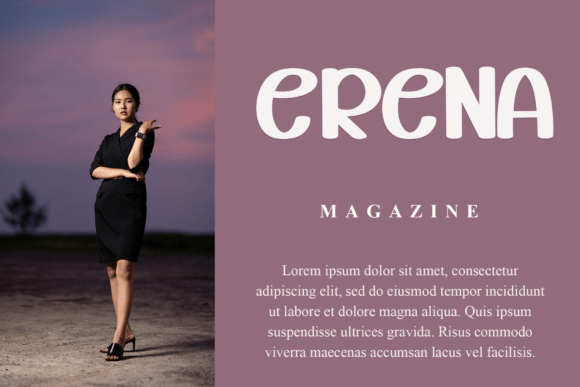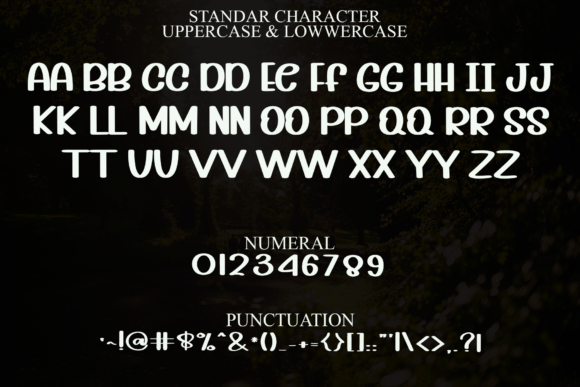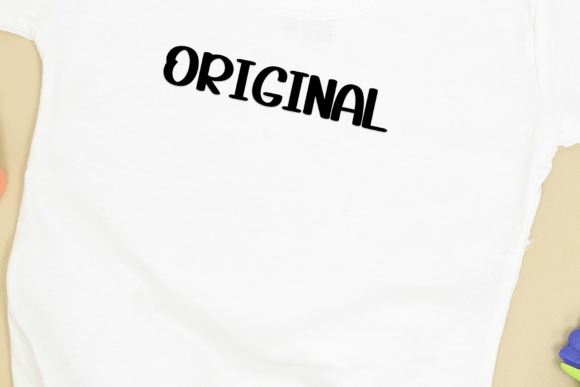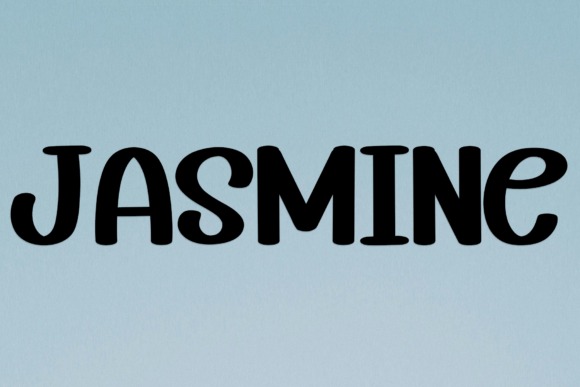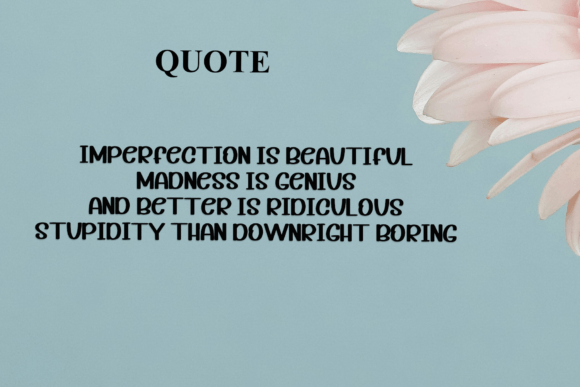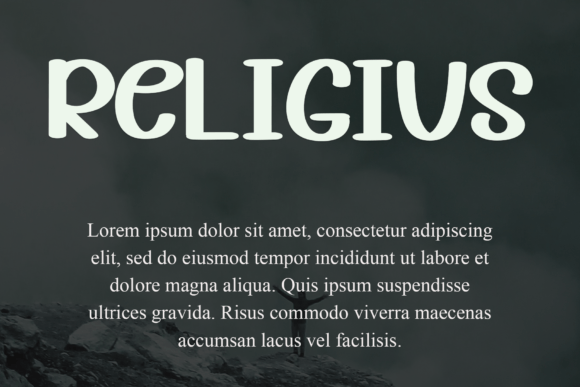
Unlock the Power of Typography: Believe Font
Have you ever been working on a design project and suddenly, that one font makes everything come together? It’s as if the words on the page are jumping off the screen, telling a story that’s impossible to ignore. That’s what happens when you find the right font, and for designers, it’s a game-changer. The Believe Font is one such gem that has captured the hearts of many with its timeless elegance and versatility.
Whether you’re creating a logo, branding, or a quote that needs to stand out, the Believe Font is an excellent choice. Its unique and beautiful touch adds a personal touch to any design, making it truly unforgettable. As a designer, you’ll appreciate the value it brings to your work, elevating your creations to new heights.
Believe Font Key Features
- Font Family: Believe Font is a sans-serif font family designed for digital use.
- Unique Characteristics: Believe Font features a clean and modern design aesthetic, with a subtle rounded edge to give it a friendly and approachable feel.
Believe Font Review
Overall, I’d say the Believe Font is a solid, modern sans-serif font that’s perfect for titles, headings, and other display text. ✨ Its clean lines, rounded edges, and subtle curves make it an excellent choice for creating visually appealing designs.
- Legibility is great, even at smaller font sizes.
- Believe Font is highly customizable, allowing you to adjust the spacing, line height, and font weight to suit your design needs.
- It’s a great choice for digital interfaces, such as websites, mobile apps, and social media platforms.
- The Believe Font may not be suitable for body text, as it can be a bit too playful and attention-seeking for large blocks of text.
- The font family is relatively small, so you may not have as many options as you would with more comprehensive font libraries.
- The Believe Font may not be the best choice for print materials, as its digital-centric design may not translate well to physical media.
Overall, I think the Believe Font is a great addition to any designer’s toolkit, but it’s essential to use it judiciously and in the right contexts. With some careful consideration, you can unlock its full potential and create stunning designs that grab attention and engage your audience.
The Believe Font is ideal for:
- Creating motivational quotes and posters.
- Designing inspirational graphics and social media posts.
- Adding a touch of elegance to wedding invitations and stationery.
Comparison: While Believe Font has a more playful and cursive feel, Great Vibes Font is more refined and elegant. Great Vibes Font is ideal for high-end designs, whereas Believe Font is better suited for casual and creative projects.
Comparison: Carolyna Pro Font is more polished and refined than Believe Font, making it ideal for high-end designs. Believe Font, on the other hand, is better suited for more casual and creative projects.